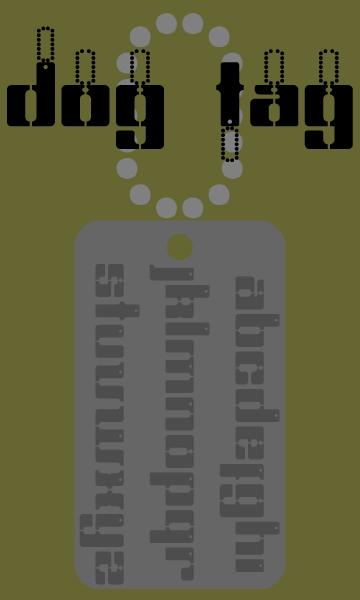
Dog Tag
• so it turns out that this was the start of the Basic Black family. this has grown into a large family which takes advantage of one of Fontstruct's great features - the ability to ornament fonts quite easily by applying/using the many bricks in different patterns - of course :) this has been fun. beyond an exercise in creating different version of one font, i will probably only release these for a limited time. once i update the other versions with the numbers from here and maybe a few more punctuation marks, i will... well lets wait and see :)
Another goodie from the inexhaustable imagination of fk :)
A simple yet very effective subtly militaristic conceptualization.
Dog Tag started out as a few glyphs in a starter set. I usually begin with an idea and while trying to visualize into digital reality usually come up with a few variations of the initial thought. many times some end up in the junk pile or sometimes full sets.
Dog Tag was the first font released in what has now become the Basic Black family.